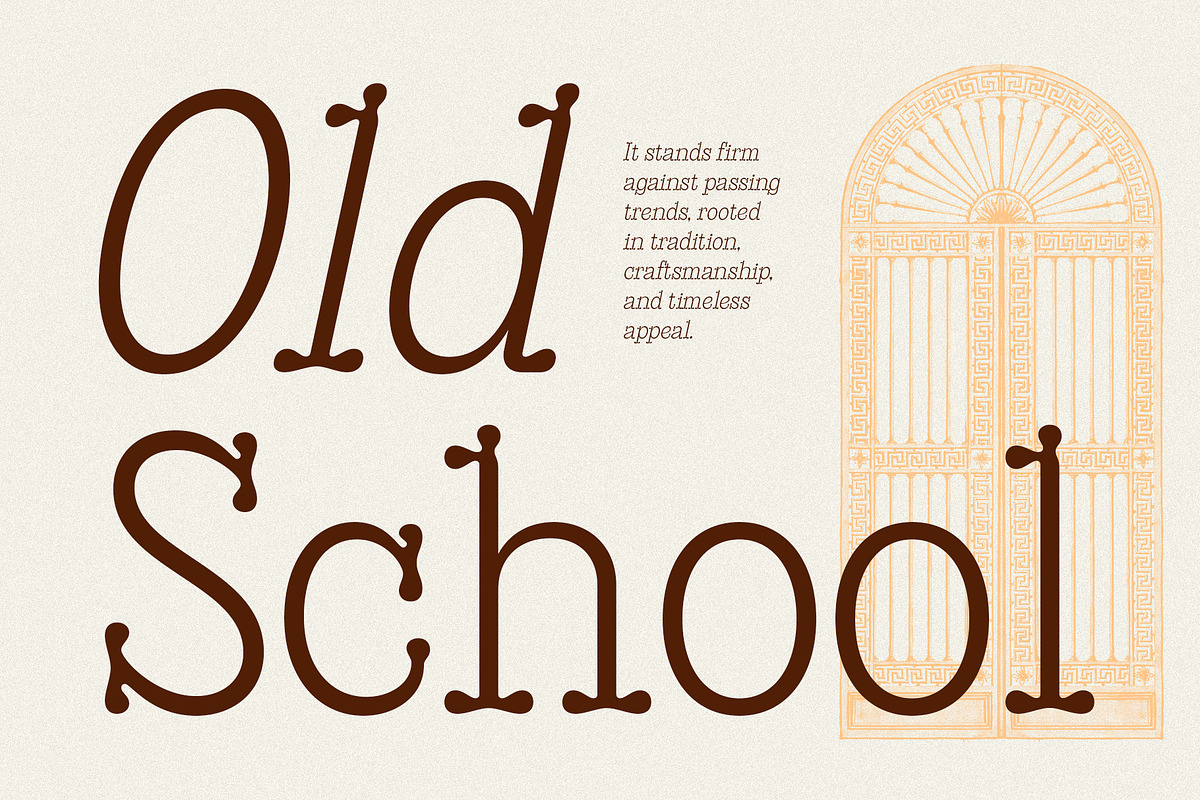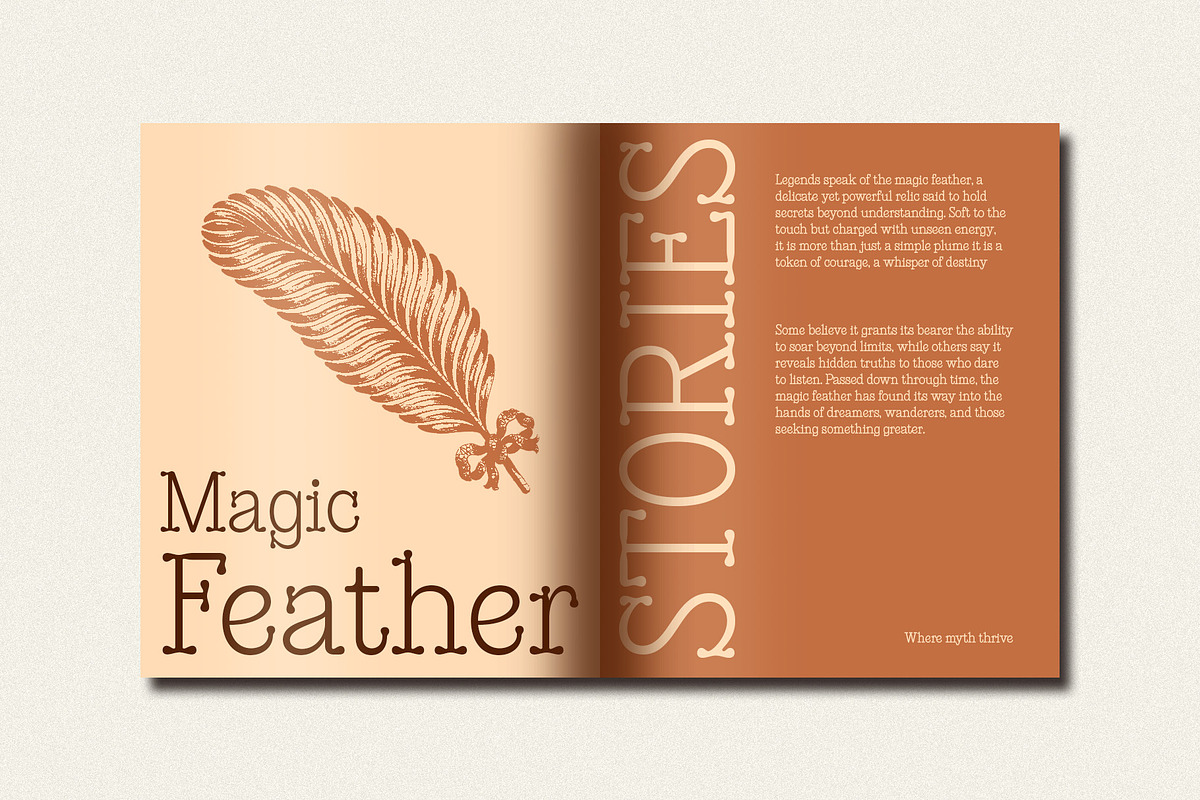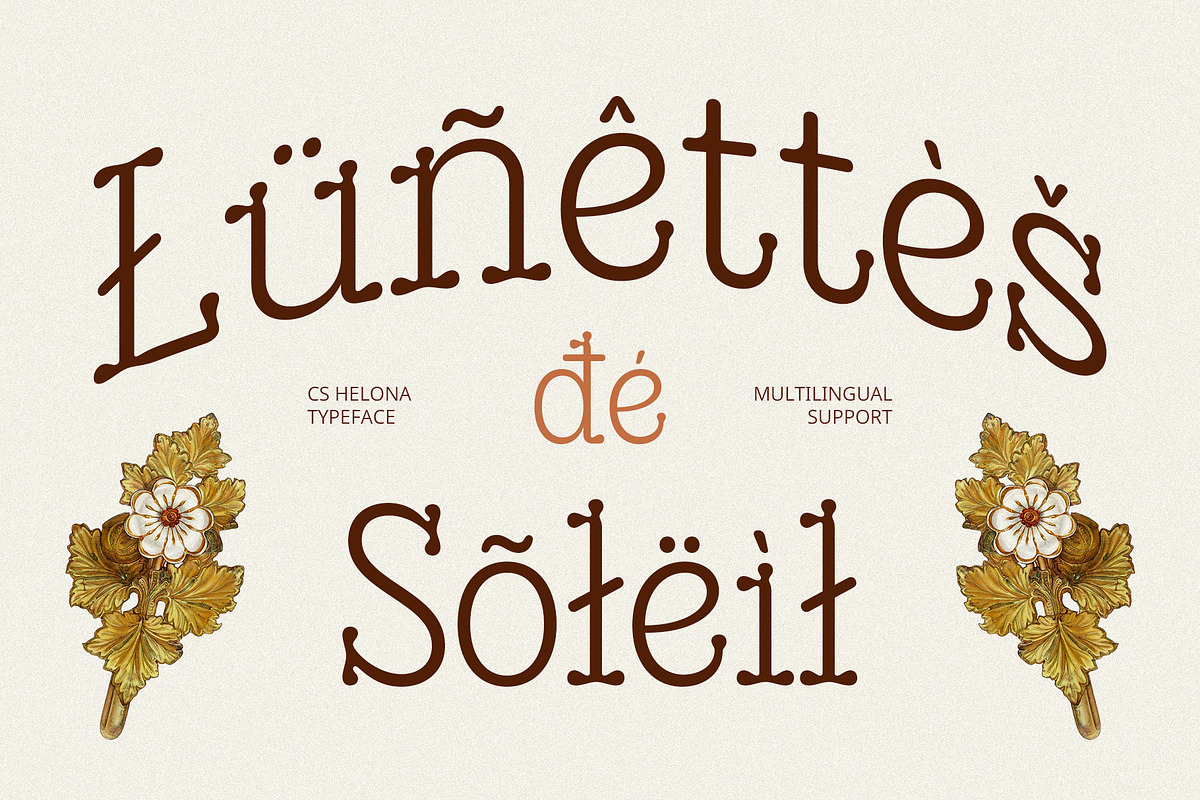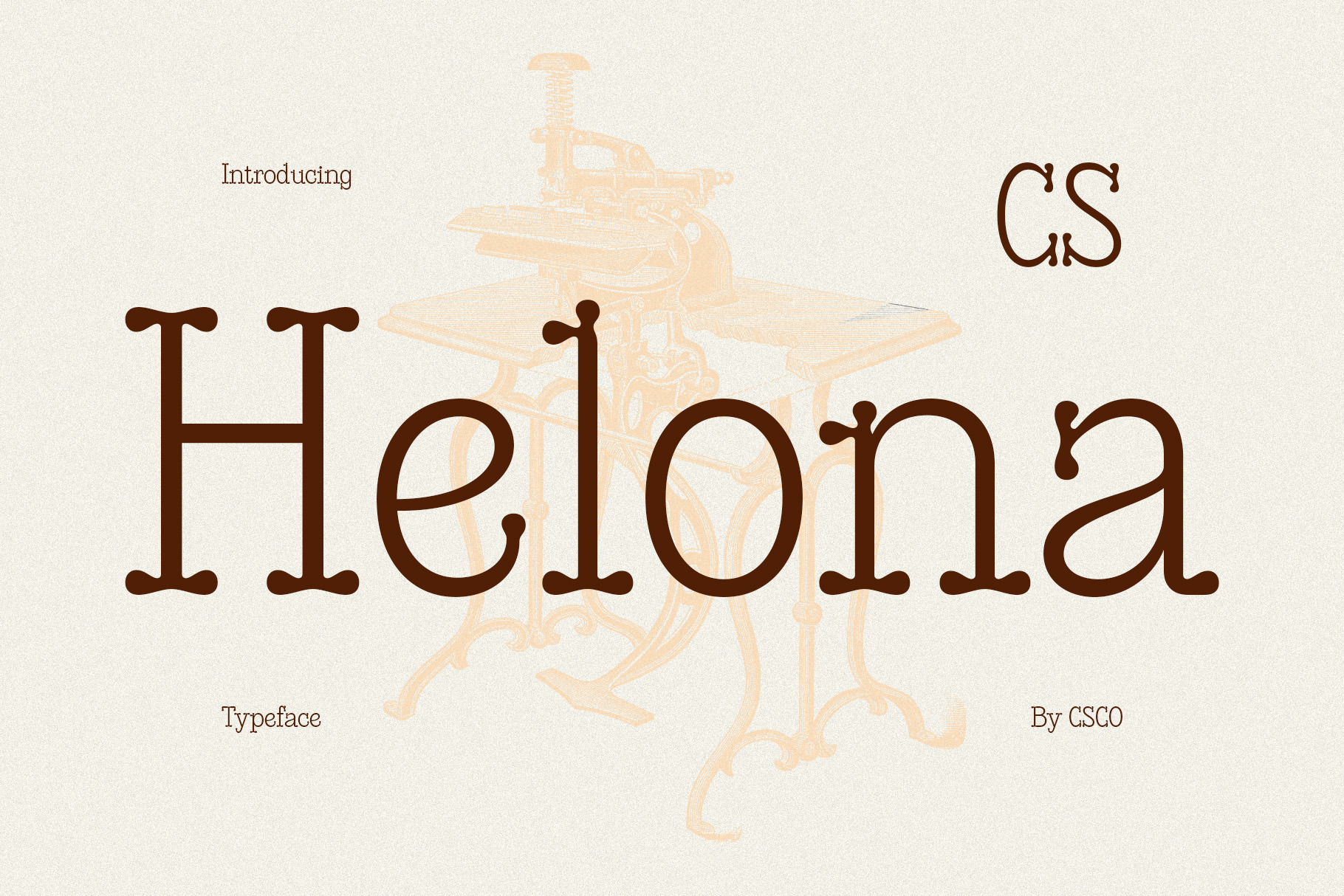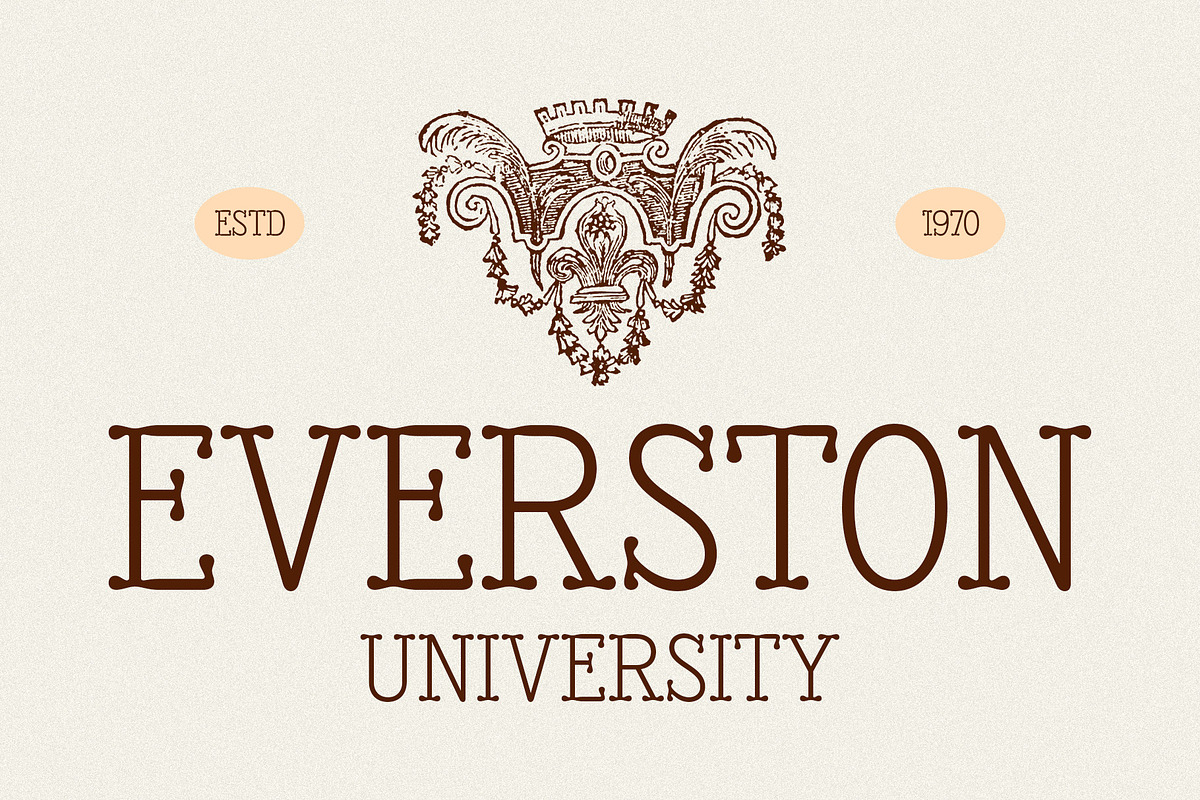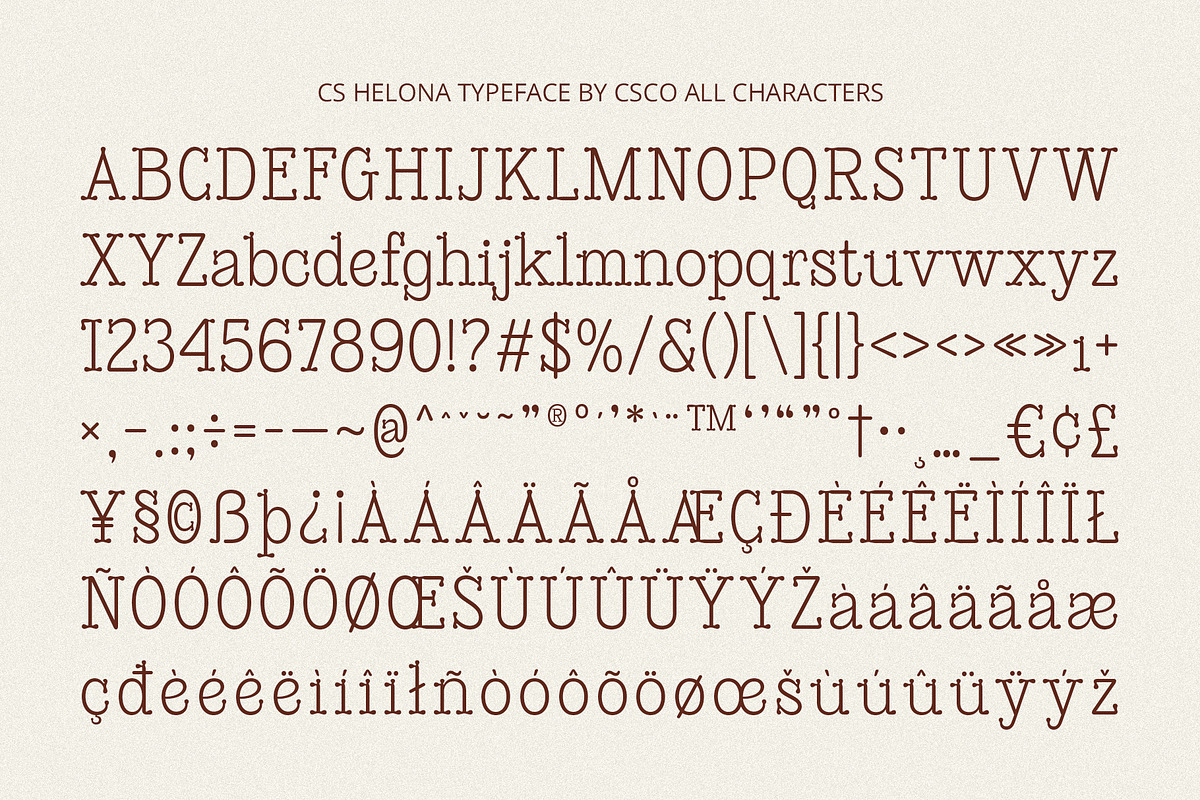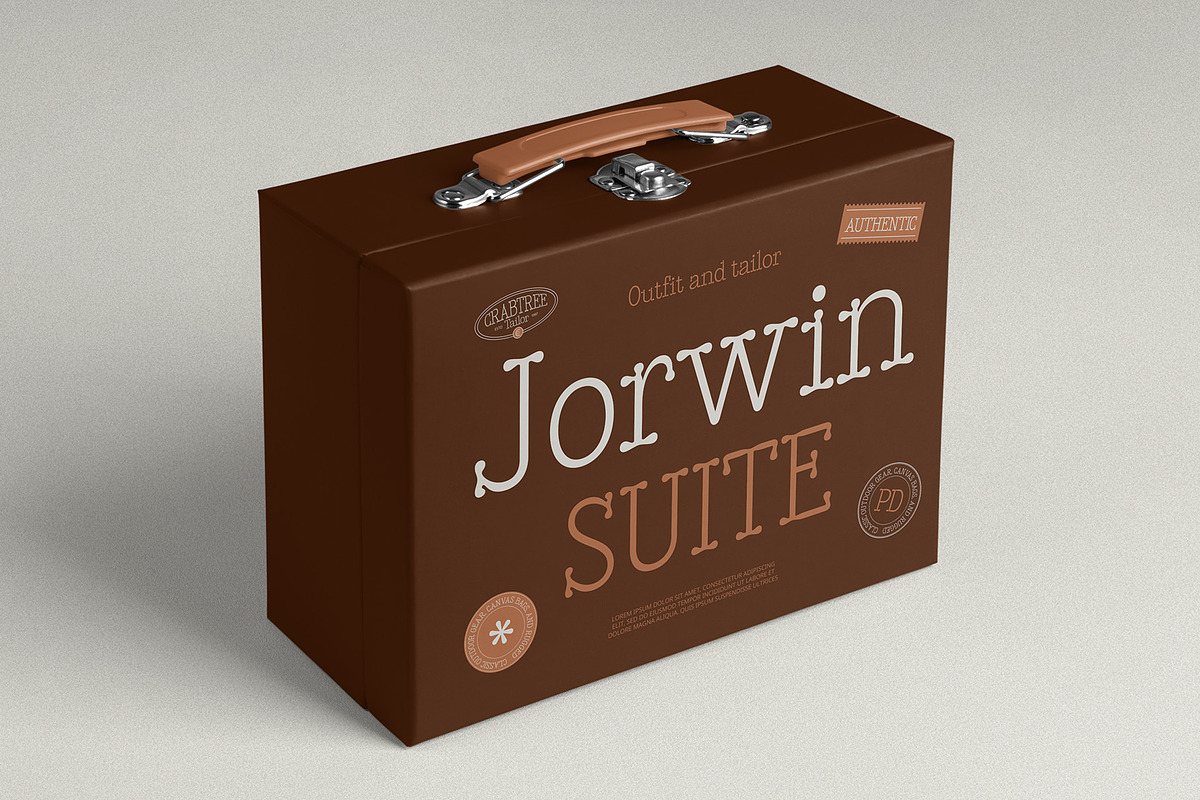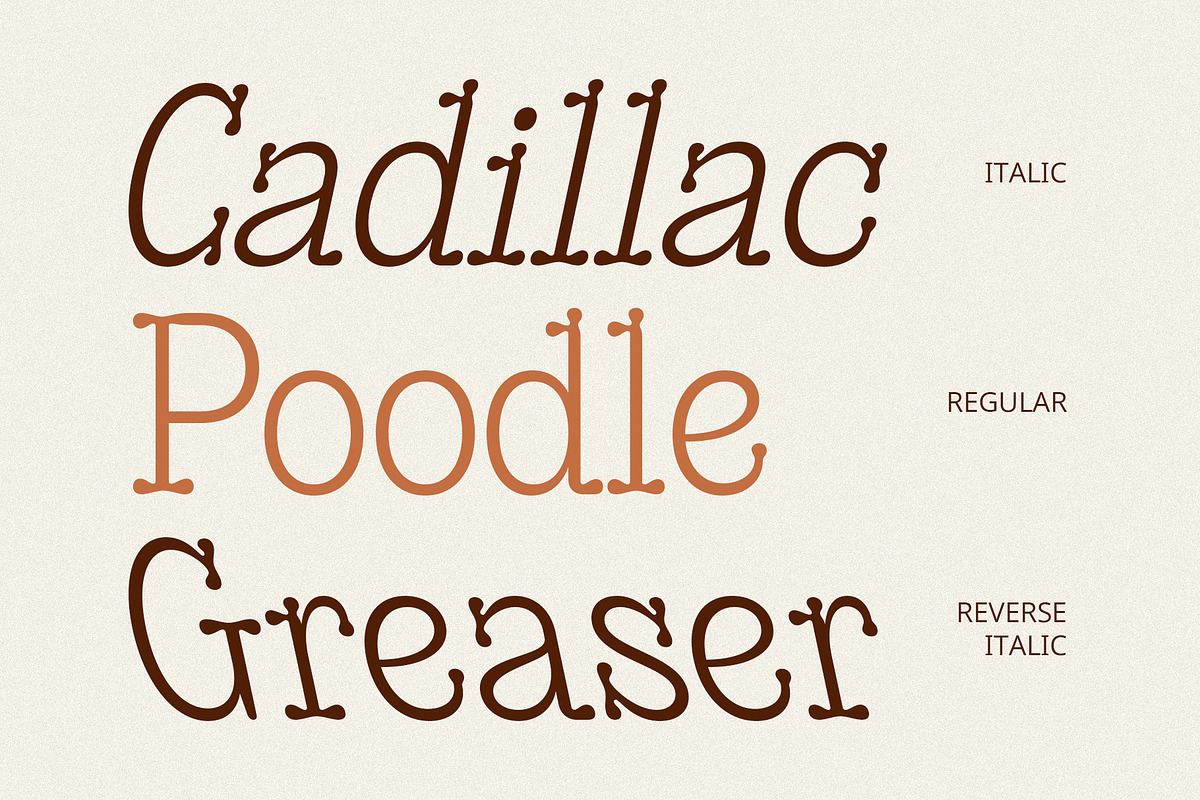
CS Helona – Decorative Font
CS Helona Font – A Decorative Serif with Elegance and Flair
A Fusion of Classic and Contemporary Design CS Helona is a modern display serif font that harmonizes traditional sophistication with modern creativity. Featuring ornate details, expressive curves, and refined serifs, this font brings a bold yet graceful presence to any design. Its unique letterforms create an air of luxury and exclusivity, making it perfect for high-end visual identities.
Distinctive Decorative Elements What sets CS Helona apart is its artistic and asymmetrical details, which add a touch of individuality to every character. Whether it’s subtle embellishments, fluid curves, or striking contrasts, this font offers a one-of-a-kind aesthetic that enhances creative compositions. The result is a high-impact display font with depth, sophistication, and visual intrigue.
Perfect for Luxury and Editorial Designs Designed for elegant branding, premium packaging, and stylish editorial layouts, CS Helona brings a timeless yet forward-thinking appeal. Its decorative yet readable structure makes it an excellent choice for fashion magazines, boutique logos, artistic posters, and modern invitations.
A Statement of Sophistication CS Helona is more than just a typeface—it is a statement of elegance and creativity. Whether used in headline typography, luxury campaigns, or exclusive branding projects, it adds a refined and artistic touch that elevates any composition. Perfect for designers seeking to create a bold, stylish, and unforgettable visual experience.